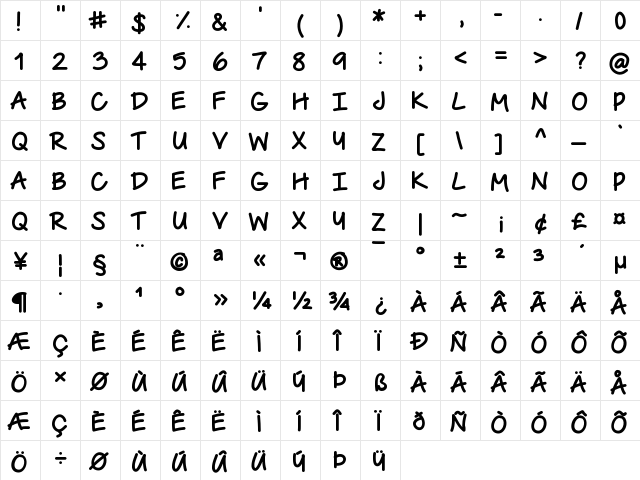
UrbanClass Medium Font Preview
UrbanClass Medium
Design Context for UrbanClass Typeface
UrbanClass takes a measured approach to typography — its balanced proportions and neutral character make it a reliable workhorse for both digital and print work.